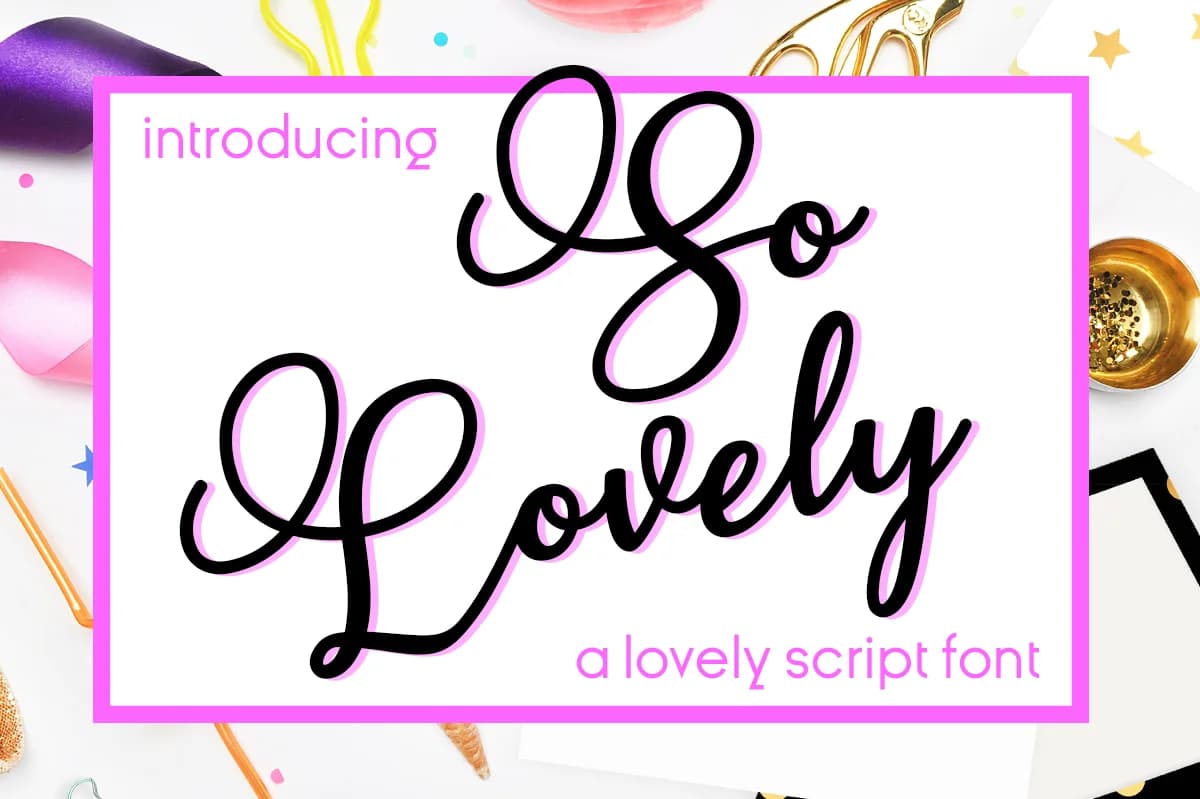
So Lovely Font by Silhouette America, Inc. is a flourished handwritten script that masterfully blends contemporary sensibilities with classic elegance and timeless charm. This typeface showcases an extensive collection of swash variations and decorative letterforms that authentically capture the character of hand-lettering while preserving excellent readability for both digital and print applications. The sophisticated flow and movement of each individual letter creates visual interest and dynamic personality, inviting your audience in with the genuine warmth of personal craftsmanship rather than the cold impersonality of machine-generated fonts.
This elegant script truly excels for wedding invitation suites where personalized sophistication and emotion matter most, high-end cosmetics and skincare packaging that requires a handcrafted aesthetic, custom-designed greeting cards that feel genuinely thoughtful and intentional, and artisan product labels that command attention on boutique retail shelves. Beyond these primary applications, So Lovely performs beautifully for personalized stationery collections, luxury event programs, nursery wall art installations, DIY craft signage, and branded social media graphics. Whether deploying it on printed materials or digital platforms, this script brings genuine warmth and authentic character to any creative project.
- Elegant, Flowing, So Lovely
So Lovely Font is a script font that shines as a display or heading face. Pair it with a clean sans-serif or serif font for body text β the contrast creates a clear hierarchy while the two styles stay balanced and easy to read.